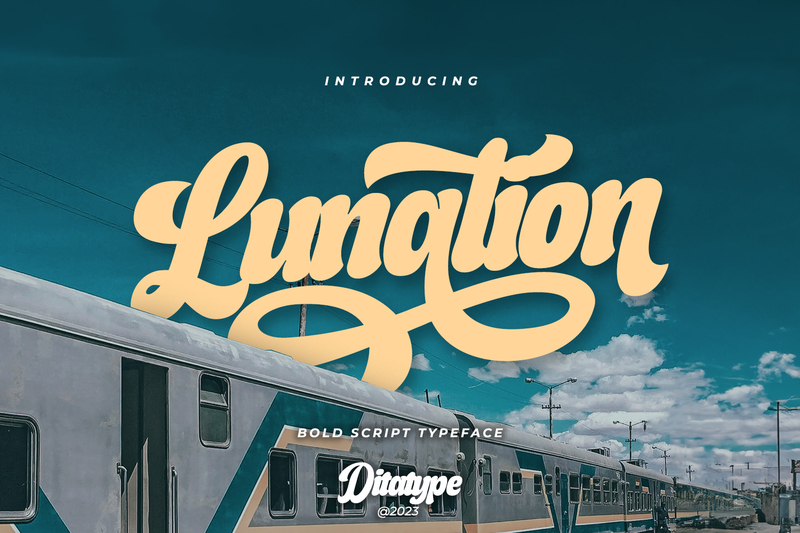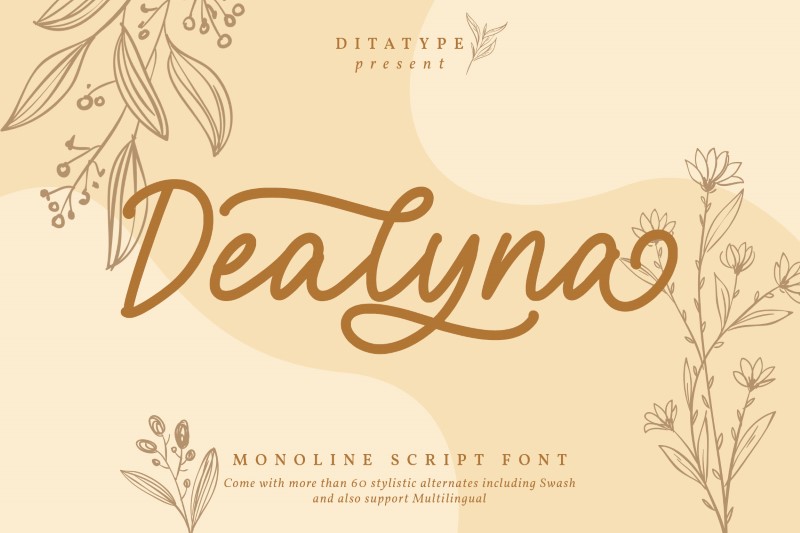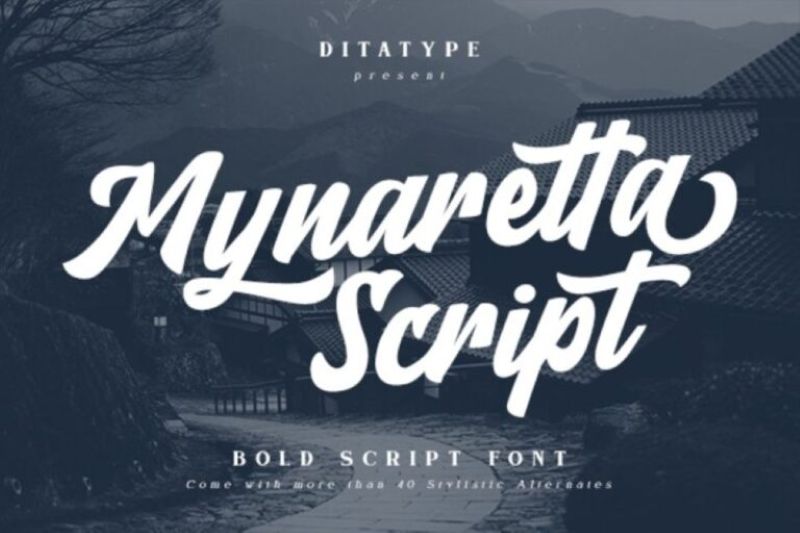
In the world of typography, small details often determine the character of a design. One of the font styles that can give a dynamic, artistic feel is swash tail script fonts. This font features elongated tips that form decorative tails, creating an elegant yet expressive visual flow.
Various design needs, such as logos, product packaging, invitation designs, and creative branding elements, often use swash tail script fonts for their characteristics. The flowing, curved lines not only enhance the aesthetic value but also present a livelier and more characterized visual. Besides, the decorative tail shape creates a visual focal point that attracts the audience.
Through this article, you will find several recommendations of distinct swash tail script fonts with decorative tails. Each font has its style that serves as inspiration for a more dynamic, attractive, and impactful design.
Fountained
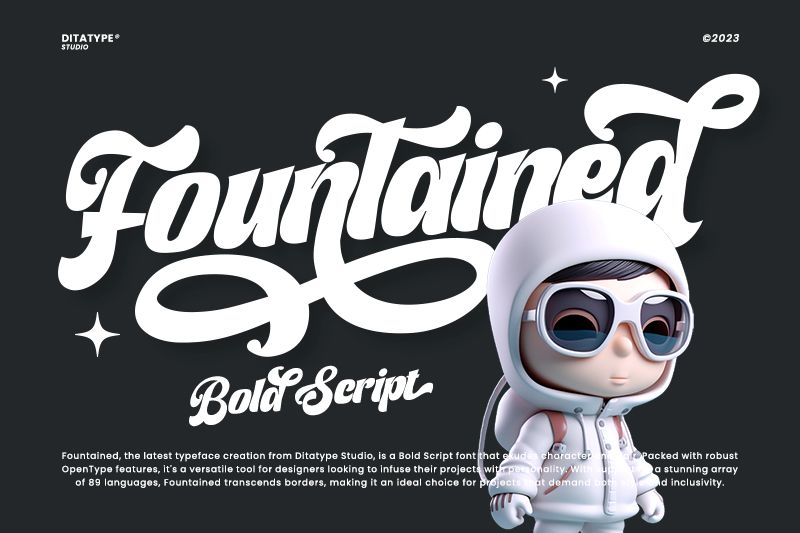
Fountained presents a bold script style that emphasizes strong characters with a smooth and expressive letter flow, making it a standout choice among the category of swash tail script fonts. Its distinctive feature is seen in the long and curved swash tail, especially on the first and last letters, thus creating a decorative appearance. The bold letter structure with balanced proportions makes this font easy to read despite its prominent ornamental elements. Therefore, Fountained is perfect for logo design, headlines, branding, and various visual needs that want to deliver an artistic impression and character.
Mildenday
Mildenday is a font that emphasizes the bold script letterforms and dynamic line flow. As one of the examples of swash tail script fonts, this font has graceful, flowing details of the letter tails. Its main characteristic is the long, curved swash tails on several letters, creating a dynamic visual rhythm while adding a decorative touch. The solid stroke structure with gentle curves creates a balance between firmness and elegance. This combination makes this font perfect for logo design, headlines, and branding.
Tailgates
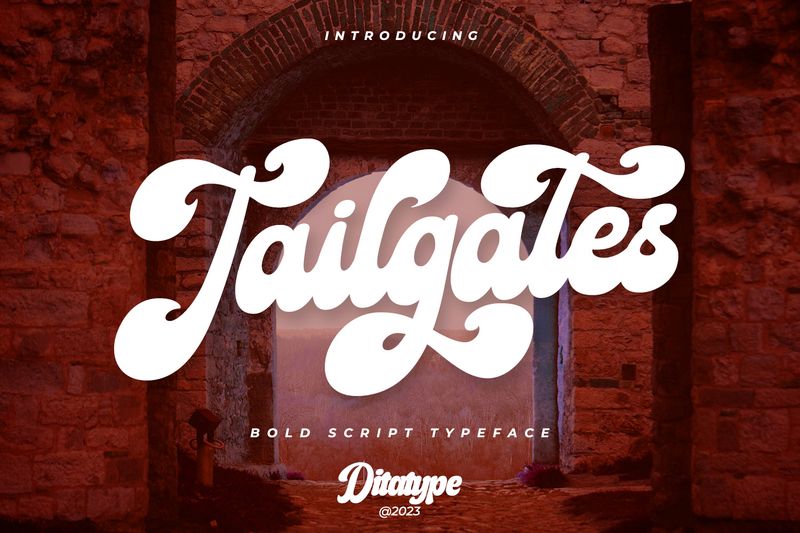
Through its artistic font design, Tailgates features a slightly playful script character with an energetic letter composition. It has a distinct brushstroke-like swash tail with striking thick-thin contrast, creating the appearance of a renowned artist’s painting. This character makes Tailgates come into the category of swash tail script fonts, known for its prominent decorative letter-tail elements.
Rubrical
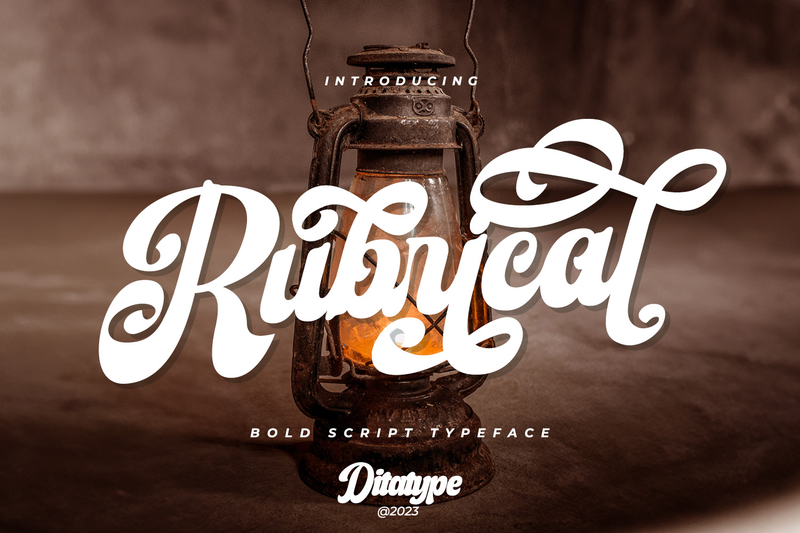
Rubrical presents a dynamic and decorative letter composition, creating an instant attraction for the audience. The letter character has a bold weight with dynamic proportions and a decorative shape that provides it an artistic feel. In some of the letters, there is a beautiful swash tail with additional decorative elements, enriching the letter’s visual. This is a distinct characteristic of swash tail script fonts, highlighting the tail elements of letters as an artistic accent. Thus, this font is suitable for use in logo designs, titles, and various creative branding needs.
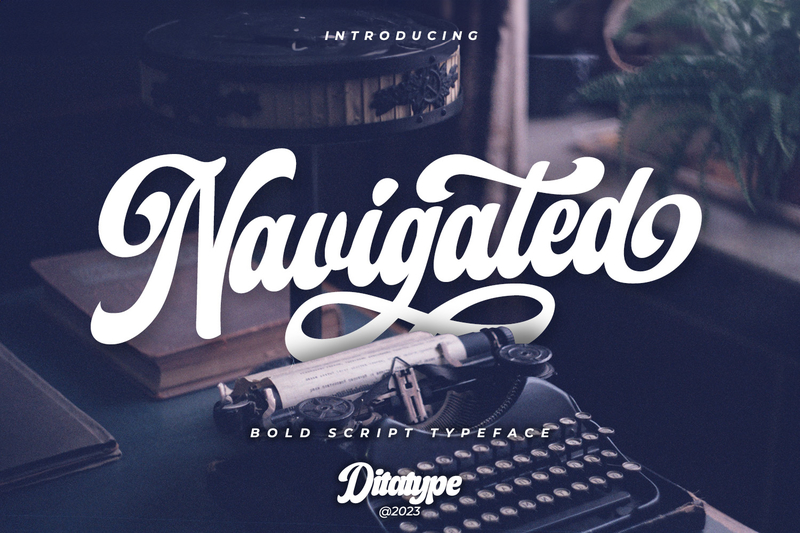
The letter structure of Navigated has bold, flowing shapes that present a thick yet soft typographic appearance. The connections between letters are smooth, creating a natural and dynamic writing flow. Several characters have elongated and curved swash tails, providing a decorative accent that enriches the visual composition of the text. This font is ideal for event invitation designs, greeting cards, and various decorative stationery, as it gives an artistic nuance. These characteristics make Navigated one of the most attractive swash tail script fonts for designers.
Gradable
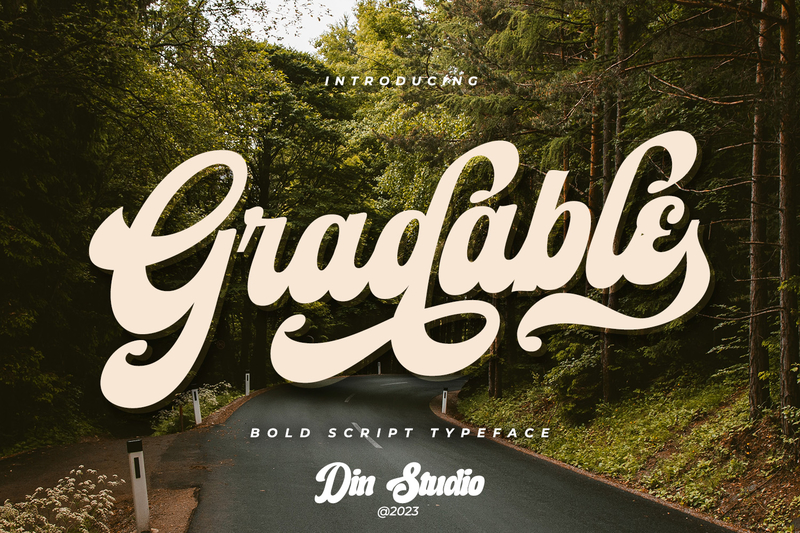
Gradable has a script letterform with a thick stroke structure and balanced proportions. Each character’s design shows smooth curves, creating a steady and orderly flow. It features elongated, curved swashes with decorative shapes at the tails and terminals, making it visually appealing. This character reflects the style of swash tail script fonts, highlighting the beauty of curves while also presenting expressive and characteristic typography.
Huntinghat
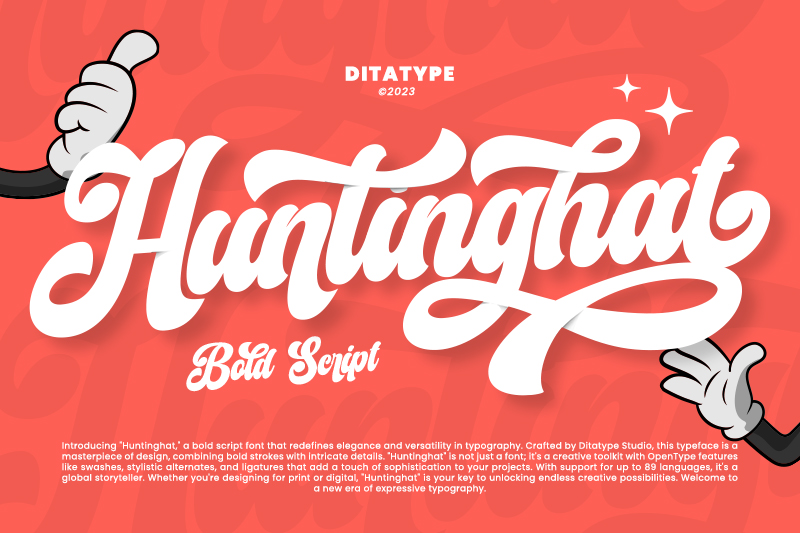
Huntinghat is a bold script font with a strong and decorative feel. Each letter has smooth curves, creating a dynamic flow and interconnectedness. The uniqueness of this font lies in the use of swash tails, which appear as decorative accents on several characters. This characteristic makes it ideal for various design needs, such as event invitations, greeting cards, packaging design, and graphic elements that require an artistic and eye-catching display.
Familytalk
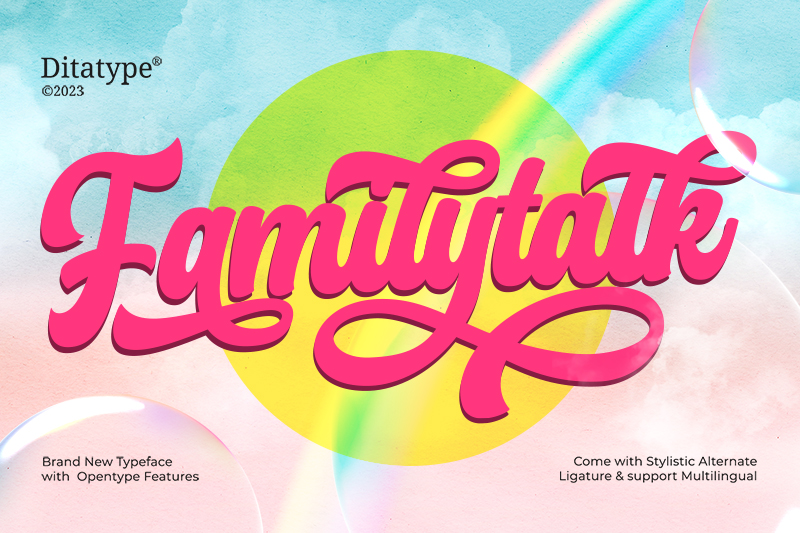
As one of the most recommended swash tail script fonts, Familytalk presents letter characters that resemble flowing handwriting. Each letter has a flowing line and a gentle contrast, creating an elegant typography composition. It features a gently flowing swash tail with aligned strokes, creating a fluid yet uniform appearance. Furthermore, the naturally flowing connections between letters create a livelier appearance, making it ideal for designs that emphasize personal, decorative, and communicative nuances.
Conclusion
Overall, swash tail script fonts provide a decorative typography character through the elongated and curved letter’s tail details. Each font has a unique style and letter composition, giving designers a variety of options for creating an expressive and appealing look.
Choose the most suitable swash tail script fonts for your design concept to look more impactful. Various font references can enrich your design idea and make your design eye-catching.